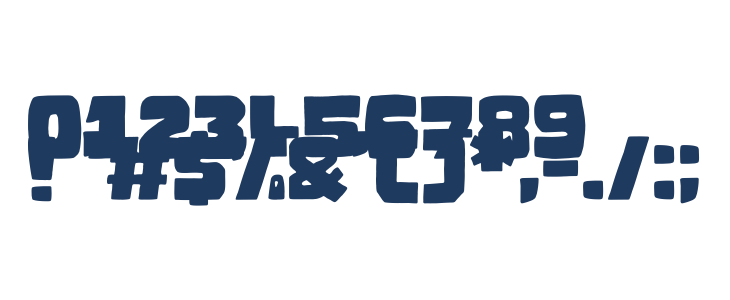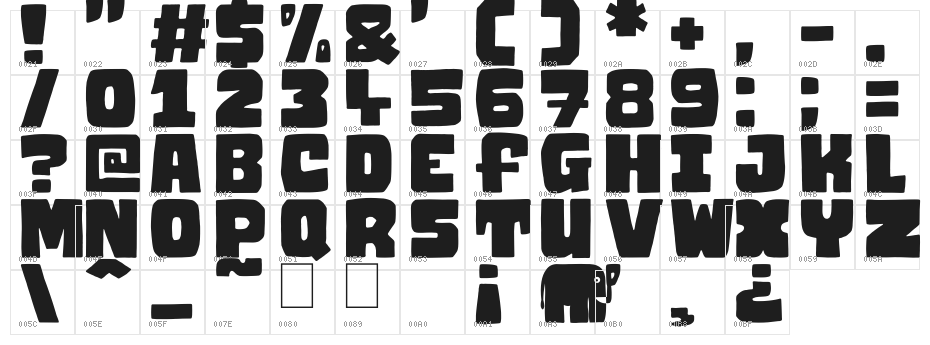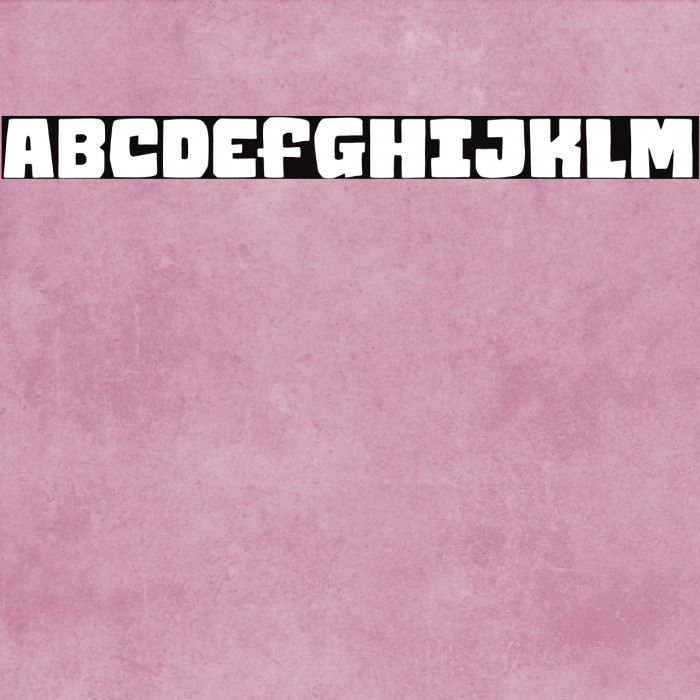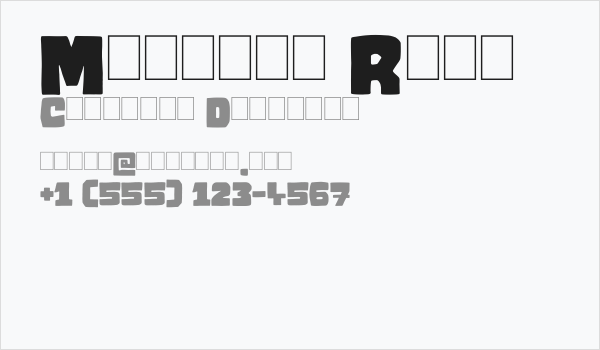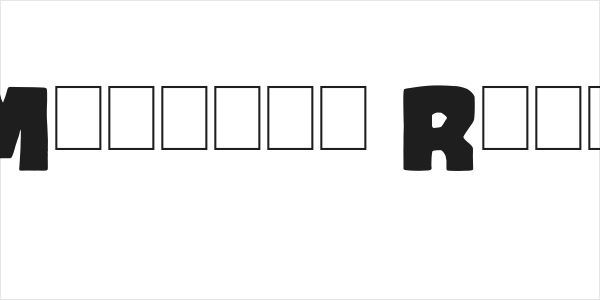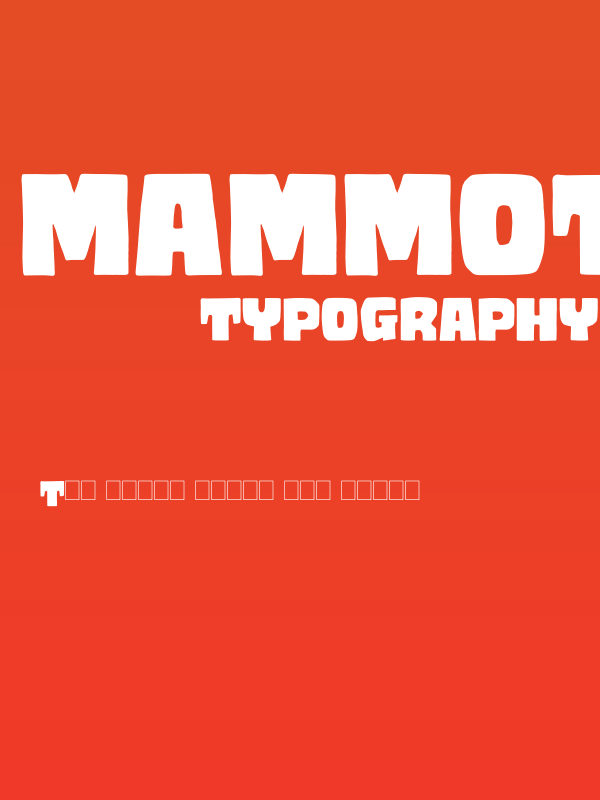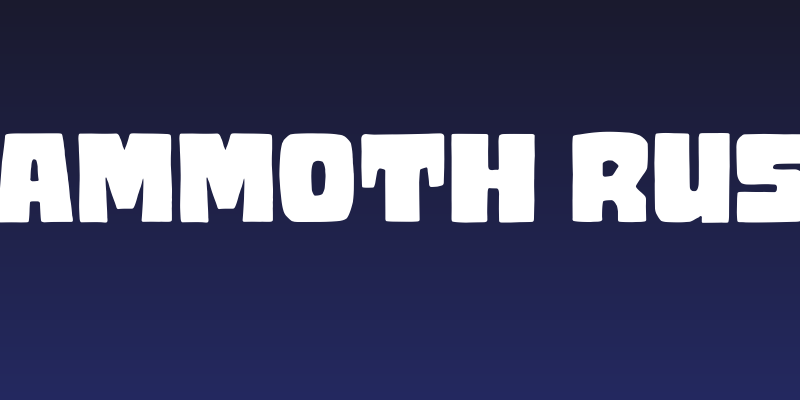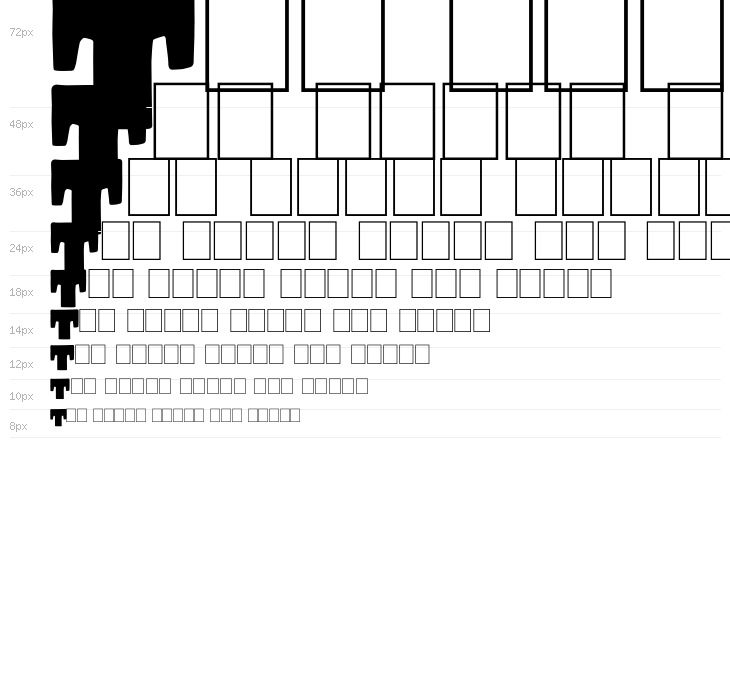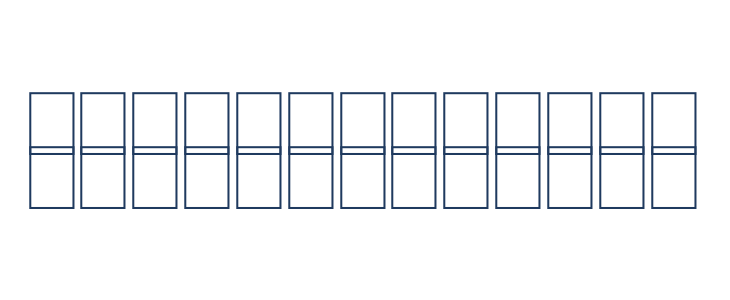
Mammoth Rush Font
Mammoth Rush Description
This bold and impactful font features thick, heavy strokes that convey a sense of strength and assertiveness. The characters are blocky and robust, with a slightly condensed appearance that enhances their commanding presence. The uppercase letters are particularly striking, with a uniform height that creates a cohesive and powerful look. The numbers and special characters maintain the same boldness, ensuring consistency across all elements. This font's design is ideal for making a strong visual statement, with its high contrast and solid structure.